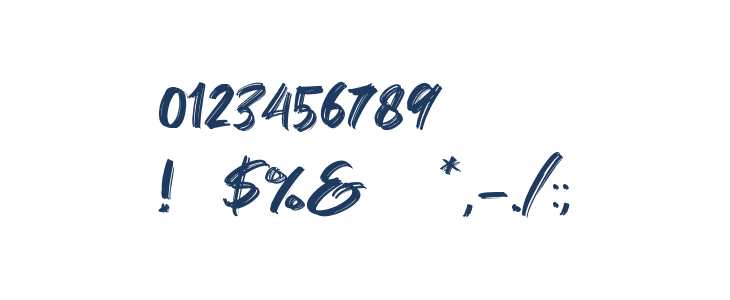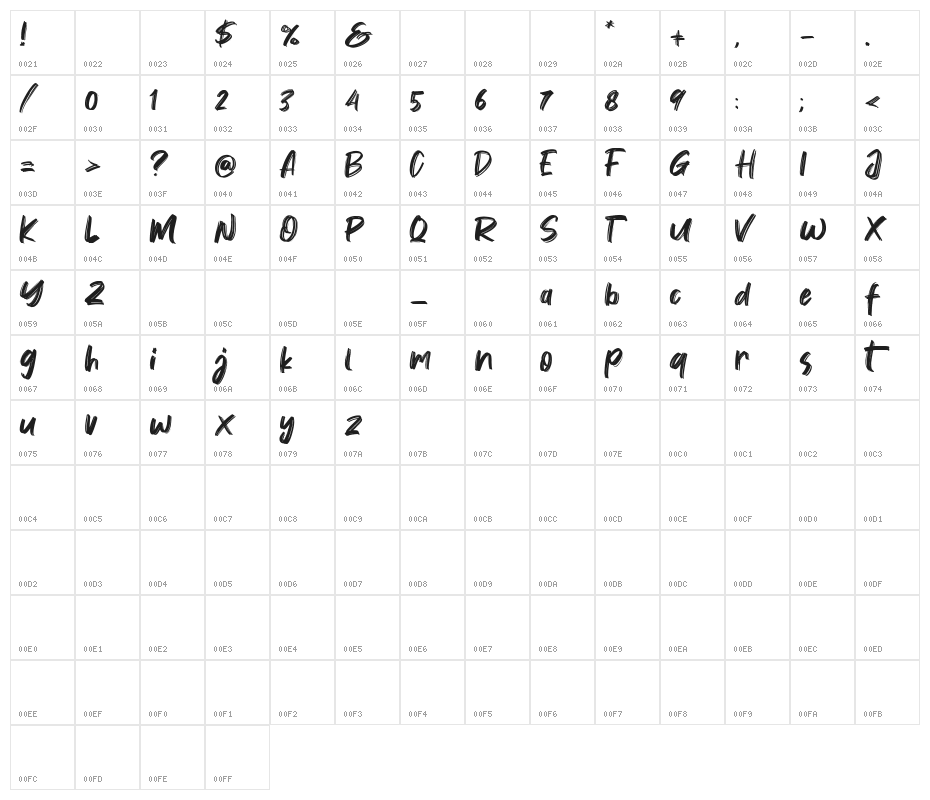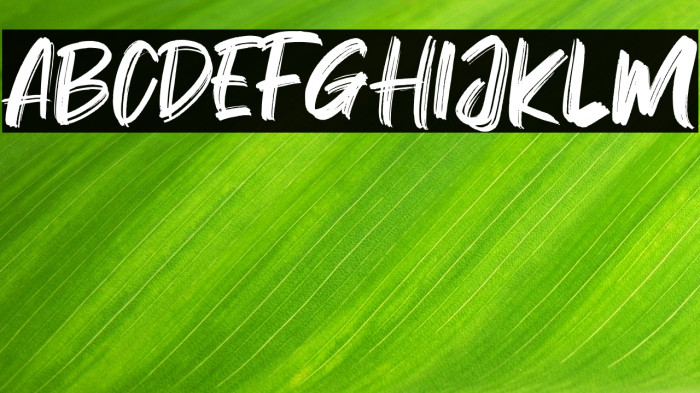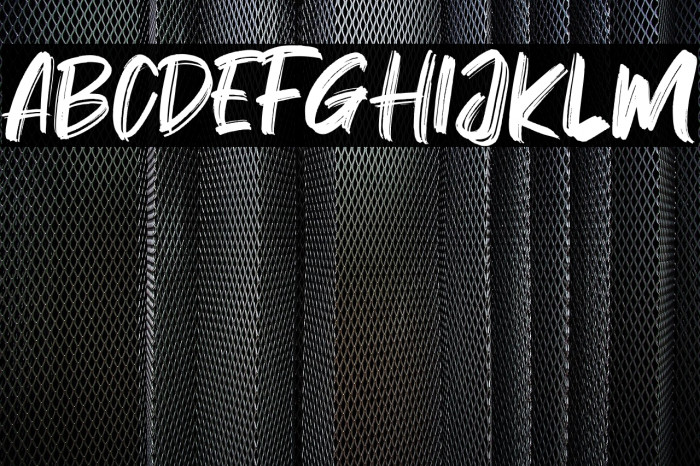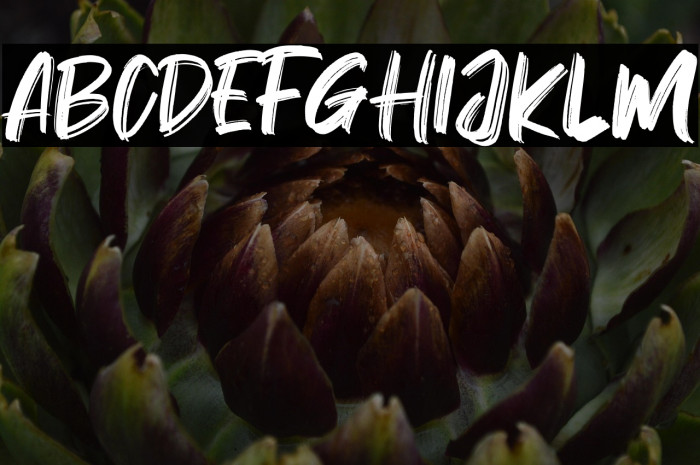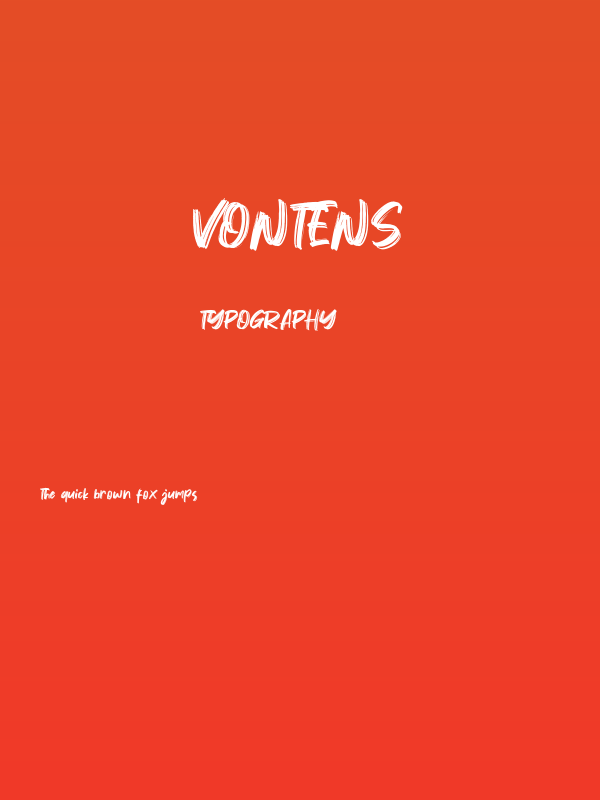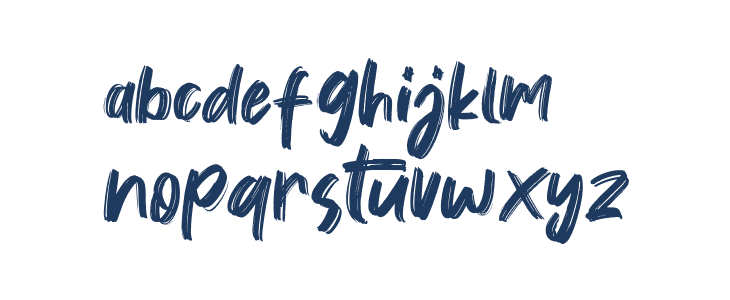
Vontens Font
Vontens Description
This font exudes a bold and energetic vibe, characterized by its brush-like strokes and dynamic flow. The letters are crafted with a sense of movement, giving them a lively and artistic appearance. The uppercase and lowercase letters maintain a consistent style, with thick strokes that vary slightly in width, adding to the hand-drawn feel. Numbers and special characters follow the same expressive style, making the font suitable for creative and informal designs. The overall look is both modern and artistic, perfect for projects that require a personal touch.
| Overall Style | Modern, Artistic |
| Proposed Projects | Ideal for posters, branding, social media graphics, and creative projects that need a lively and artistic touch. |